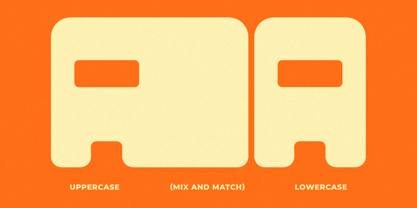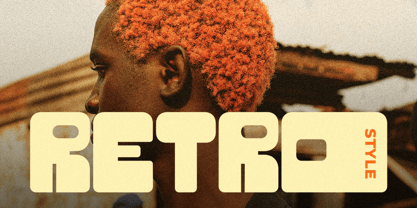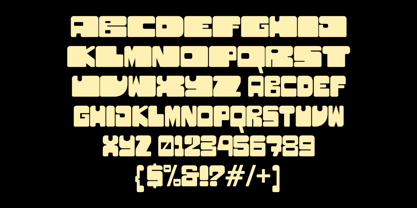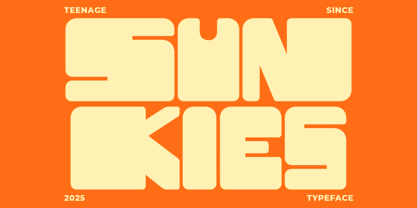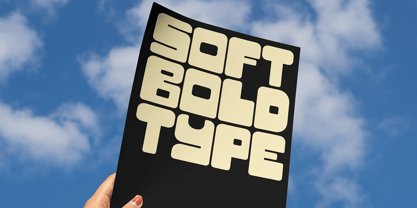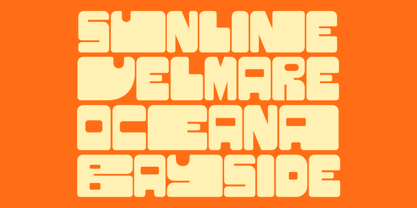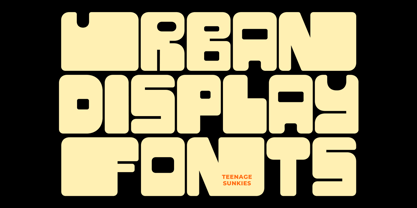
Teenage Sunkies
by Teenage Foundry
The Teenage Sunkies Font Family was designed by Miftahul Habib and published by Teenage Foundry. Teenage Sunkies contains 1 styles. More about this family
Teenage Sunkies is a unique display font that features wide uppercase letters and regular lowercase letters. This font is well-suited for designs such as posters, logos, and similar applications.
By combining the wide uppercase and regular lowercase characters, designers can create eye-catching and balanced typography for their projects.
Features: Uppercase, Lowercase, Numeral, Punctuation & Multilingual.
Designers: Miftahul Habib
Foundry: Teenage Foundry